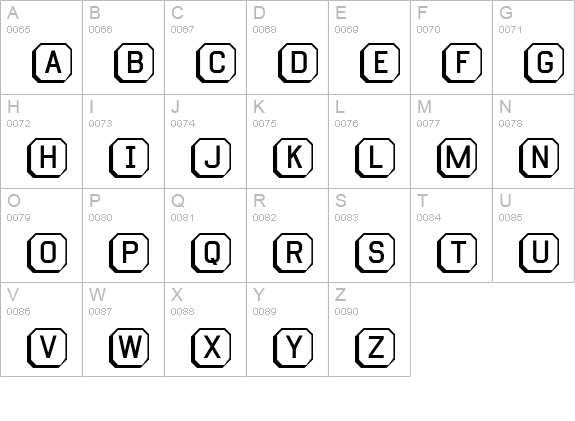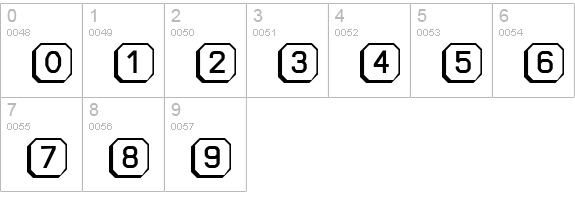
RatsampleMac3D Font Details
Introducing RatsampleMac3D font, a visually stunning typeface that is sure to make your designs come alive with its unique three-dimensional appearance. This font is perfect for adding a touch of depth and dimension to your projects, whether it's for a website, logo, or any other creative endeavor. RatsampleMac3D font boasts a distinctive style that effortlessly blends modernity with a hint of vintage charm, making it versatile for a wide range of design concepts. Its intricate details and carefully crafted curves create a sense of sophistication, while its bold presence ensures that your message will never go unnoticed. But what truly sets RatsampleMac3D font apart is its availability as a free download at FontsMarket.com. Yes, you heard it right – this exceptional font can be yours without any cost. Now, you can elevate your designs without breaking the bank, while still enjoying the quality and professionalism that RatsampleMac3D font brings to the table. So, why wait? Take advantage of this opportunity to enhance your projects with RatsampleMac3D font. Download it freely at FontsMarket.com and unlock a world of possibilities for your designs. Don't miss out on this fantastic offer – get your hands on RatsampleMac3D font today and let your creativity soar!